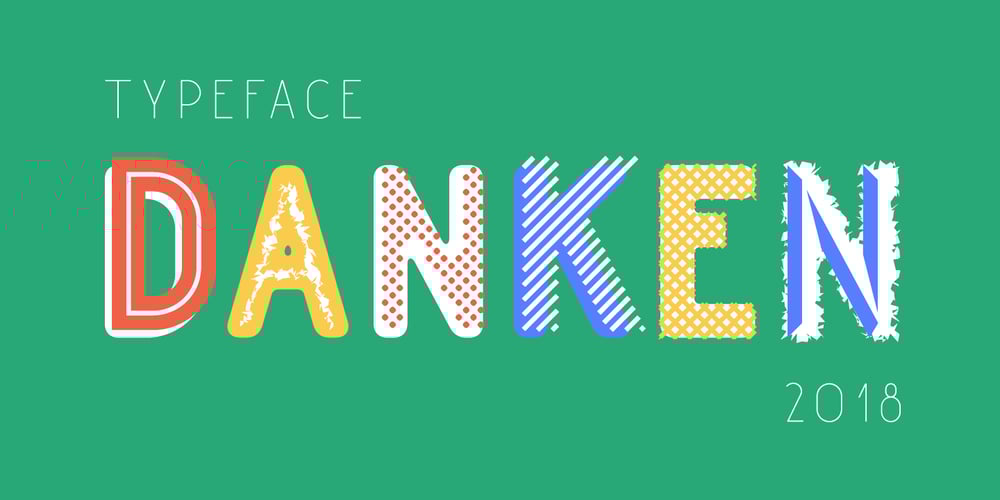
Danken
Danken font
Danken Font Family was designed by Alex Etewut and published by Etewut. Danken contains 20 styles and family package options. DANKEN is an all caps display typeface that was created to mix font styles and create unlimited variety of effects. Now it has 25 font styles but it’s growing.